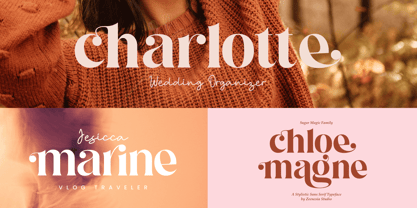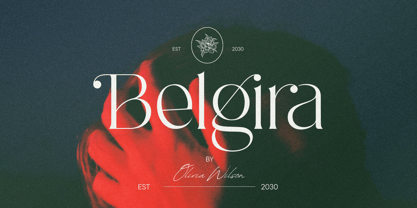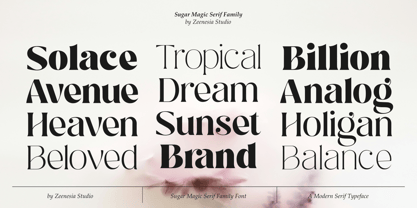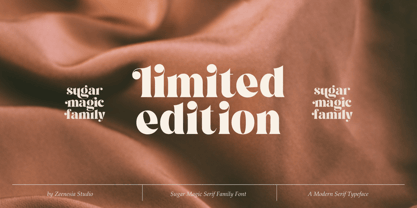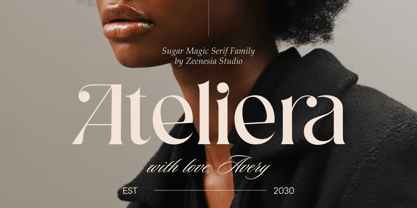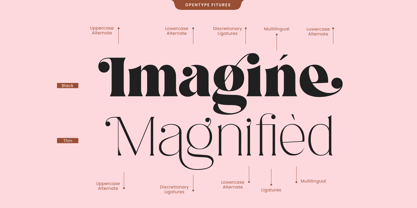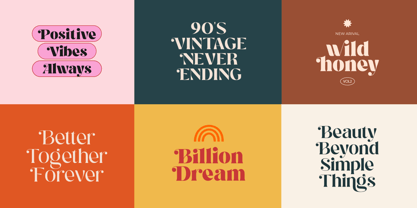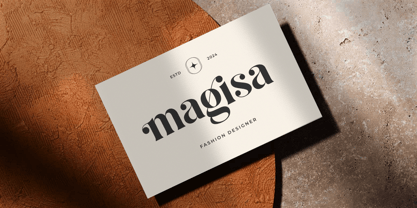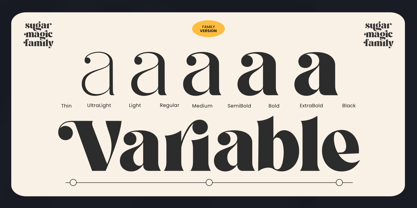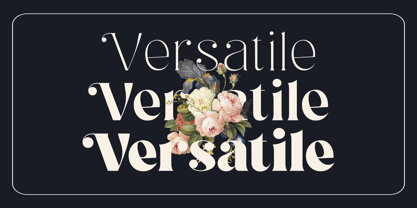
Sugar Magic Serif
by Zeenesia Studio
The Sugar Magic Serif Font Family was designed by Doni Purwoko and published by Zeenesia Studio. Sugar Magic Serif contains 9 styles. More about this family
Sugar Magic Serif is a distinctive and expressive serif typeface designed to bring elegance, personality, and a touch of magic to every word. With its bold curves, soft contrasts, and playful yet sophisticated letterforms, Sugar Magic creates a strong visual presence that feels both contemporary and timeless.
Crafted as a complete 9-weight serif family, Sugar Magic offers a wide range of styles from Thin to Black, giving designers the flexibility to create everything from delicate editorial typography to bold and impactful headlines. Each weight has been carefully developed to maintain the unique character and visual harmony of the family across every style.
Designers: Doni Purwoko
Foundry: Zeenesia Studio